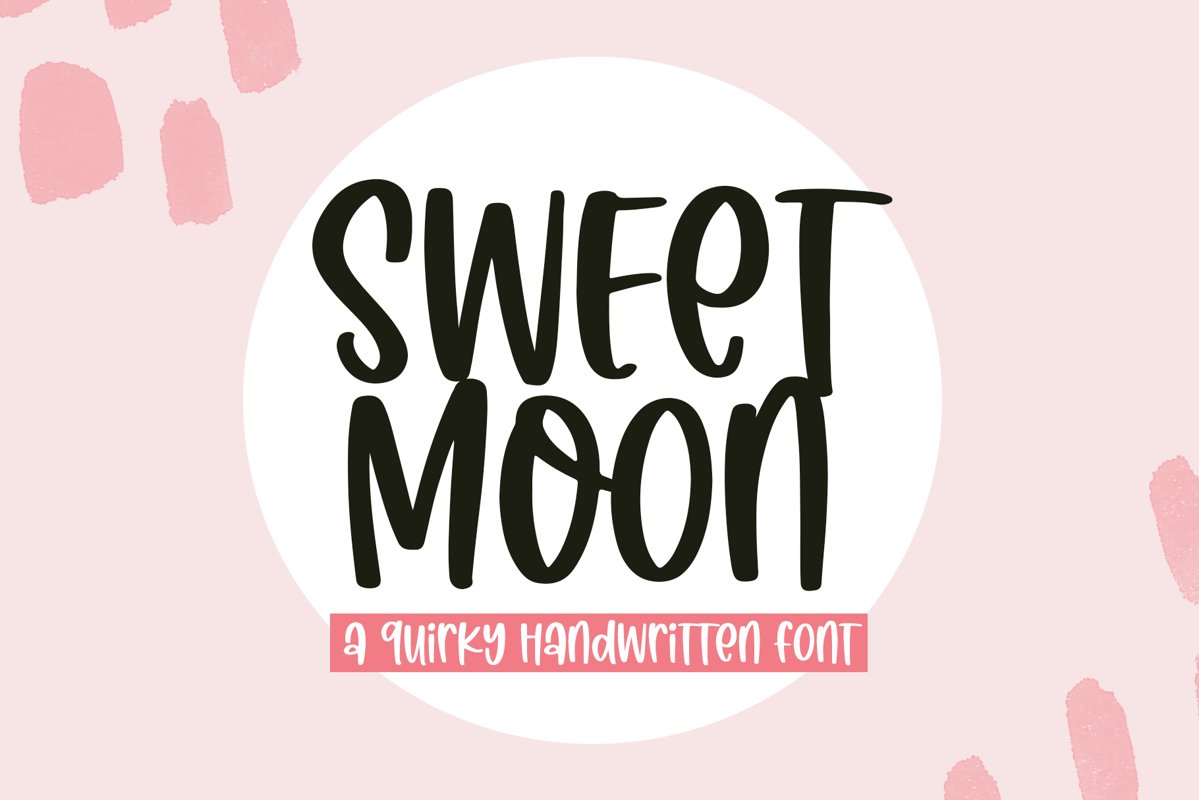
Sweet Moon is a quirky font perfect for all of your craft projects!
This font is perfect for quotes, shirt designs, websites, branding, children's designs, svg designs, blogs, logos, invitations and more!